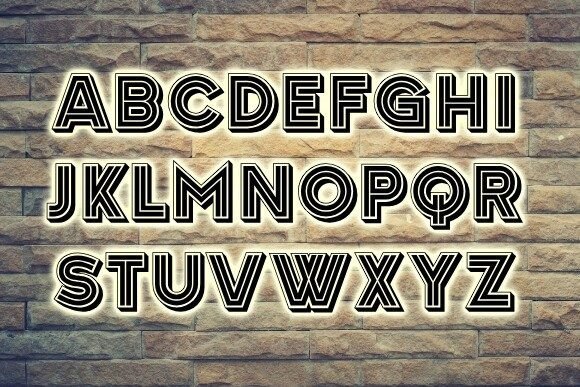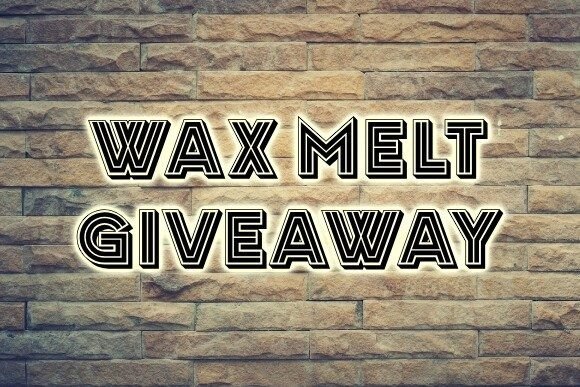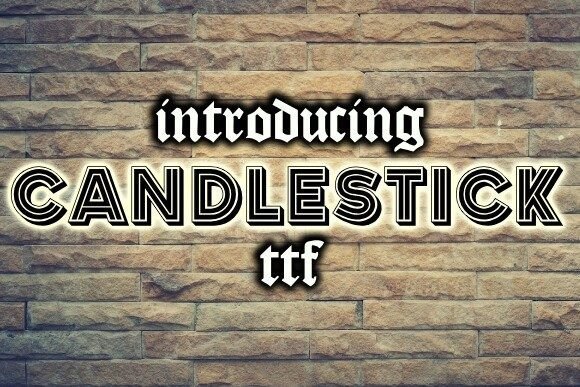
Celebrating Creativity with Candlestick Font
Have you ever been in a rush to meet a design deadline, only to find the perfect font eluding you? You scroll through your favorite font libraries, but nothing seems to capture the essence of your vision. This was my experience not long ago, until I stumbled upon the incredible Candlestick Font.
This display typeface is more than just a pretty face – it’s a game-changer for designers. Its unique aesthetic makes it perfect for posters, flyers, and even t-shirts. The Candlestick Font is a versatile and eye-catching choice that’s sure to elevate your designs and leave a lasting impression.
Whether you’re a seasoned pro or just starting out, the Candlestick Font is an invaluable addition to any designer’s toolkit. Its value lies not only in its aesthetic appeal but also in its ability to help you convey your message with confidence and style.
Candlestick Font Key Features
- Font Family: Candlestick is a sans-serif font family designed for digital use.
- Unique Characteristics: Candlestick Font features a distinctive, modern design with a focus on legibility and readability, making it ideal for digital interfaces, signage, and publishing.
Candlestick Font Review
Candlestick Font has some great features that make it a decent addition to any project ✨. First, its unique and modern design can add a touch of elegance to your UI/UX. The font is highly customizable, allowing you to adjust the thickness, texture, and even add subtle animations to create a captivating visual effect. Additionally, Candlestick Font is available in multiple weights, making it suitable for a wide range of applications.
- ✨ Unique and modern design
- ✨ Highly customizable
- ✨ Multiple weights available
However, there are some limitations to consider ⚠️. One of the main concerns is that Candlestick Font can be overwhelming if not used judiciously. Its complex design may distract from the content, making it less readable. Additionally, the font’s customizability can be both a blessing and a curse, as it may require more time and effort to achieve the desired look.
- ⚠️ Can be overwhelming if not used carefully
- ⚠️ May require more time and effort to achieve desired look
In conclusion, Candlestick Font is a solid choice for designers looking to add some flair to their projects. While it has its limitations, its unique design and high customizability make it a great option for those willing to put in the extra effort.
Getting the Most Out of Candlestick Font
For the most effective use of Candlestick Font, consider the following tips:
- Use it sparingly to create emphasis and add visual interest.
- Combine it with other fonts for a more dynamic look.
- Experiment with different font sizes and styles to create contrast.
Candlestick Font is commonly used in:
- Infographics and data visualizations.
- Marketing
Alternatives to Candlestick Font for Designers
Playfair Display is a luxurious, high-end serif font suitable for creating elegant and sophisticated designs. It is ideal for use in invitations, wedding stationery, and luxury branding. Compared to Candlestick Font, Playfair Display has a more refined and elegant feel, making it suitable for high-end applications.
Great Vibes is a modern, elegant script font that exudes a sense of sophistication and refinement. It is perfect for use in wedding invitations, event branding, and high-end marketing materials. While Candlestick Font has a more rustic feel, Great Vibes offers a sleeker and more polished alternative.
In terms of technical details, Candlestick Font is a TrueType font with a PANOSE classification of ‘sans-serif’. It has a Unicode range of U+0000 to U+10FFFF and supports OpenType features, including ligatures and kerning.